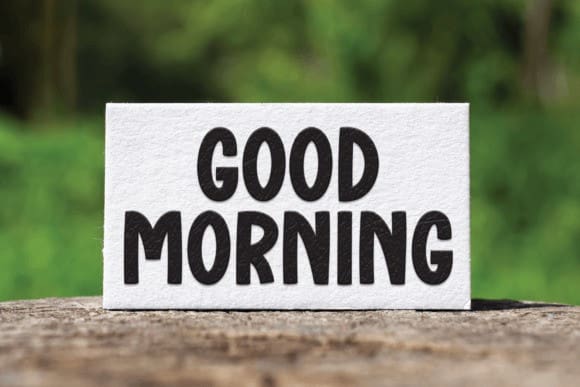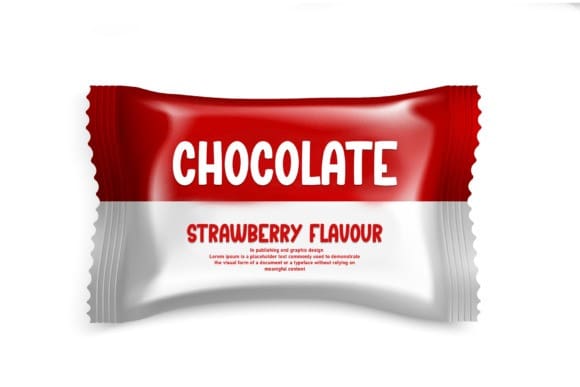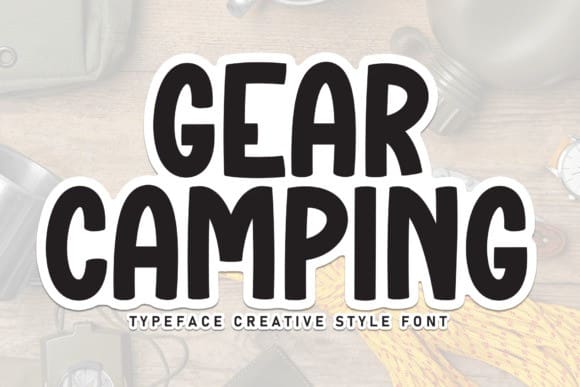
Gear Camping Font
Gear Camping Font is a sweet and friendly handwritten font. Its natural and unique style makes it incredibly fitting to a large pool of designs. The only limit is your imagination!